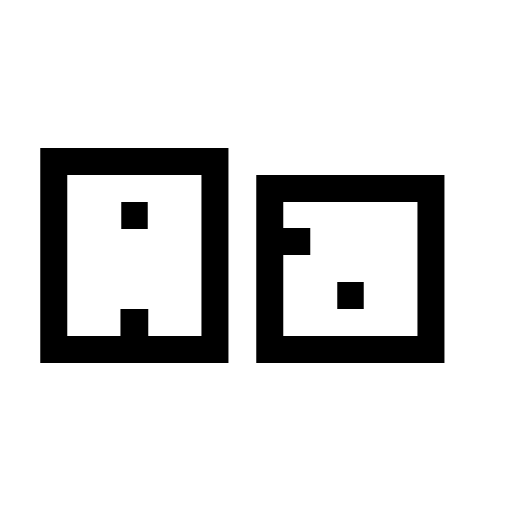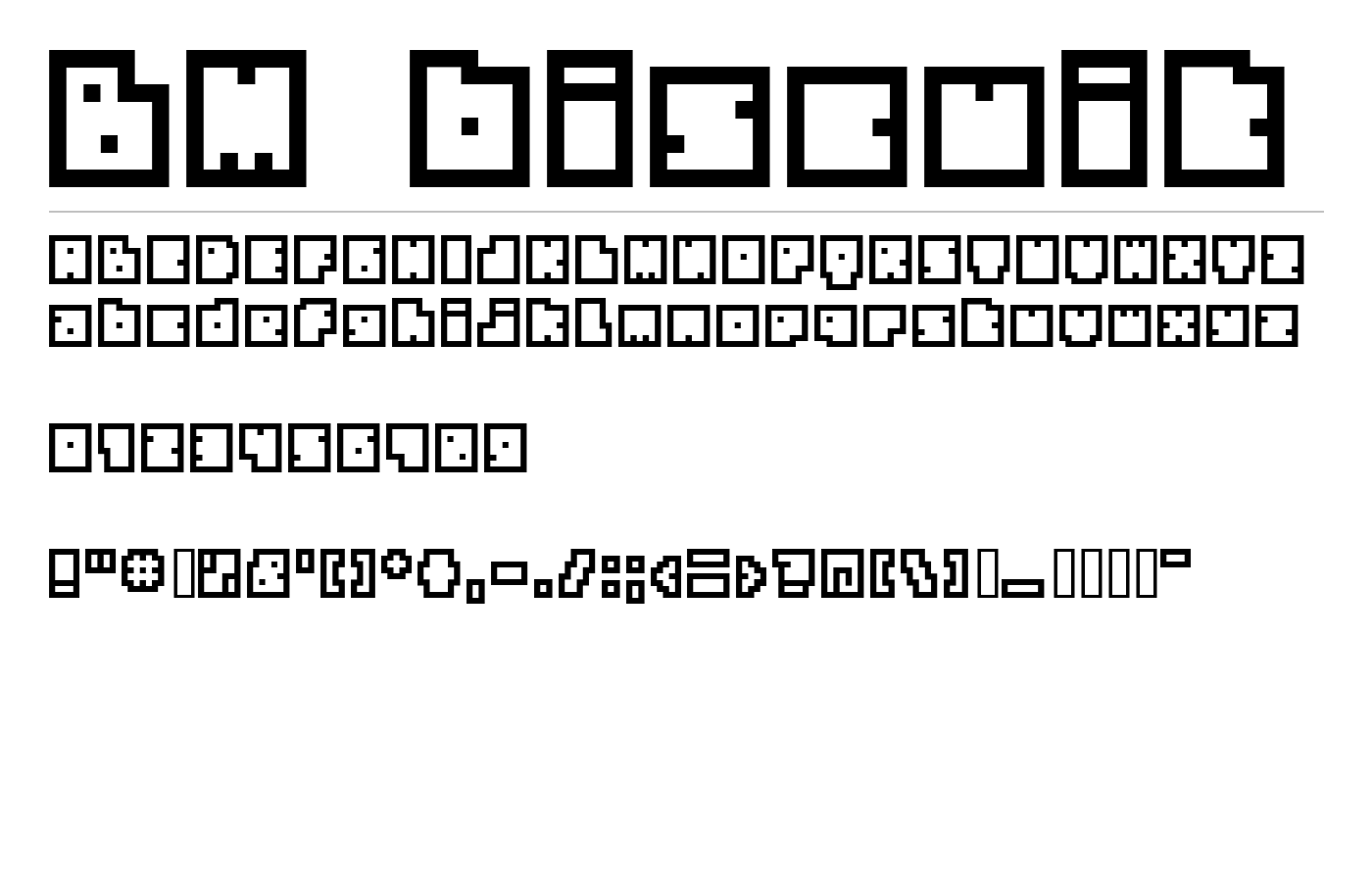
BM biscuit Font is a bold, blocky sans serif typeface with a distinctive pixelated, geometric design that gives it a playful and retro digital feel. Its square shapes and consistent stroke weight make it ideal for eye-catching headlines, logos, or creative projects seeking a fun, tech-inspired vibe. This font works best in large sizes where its unique style can stand out and add a quirky, modern touch.